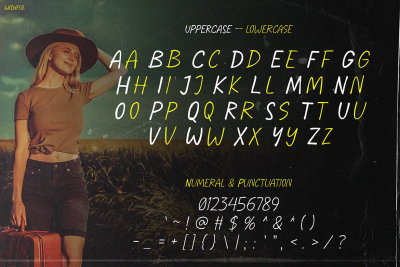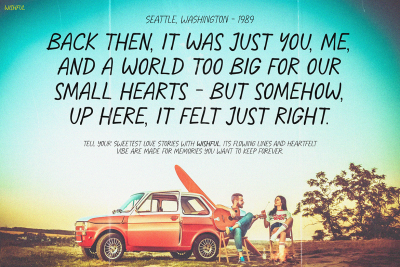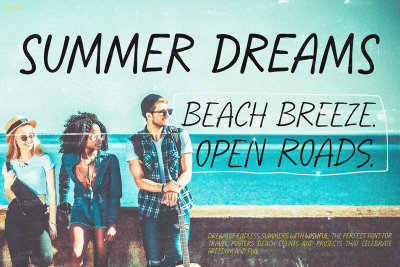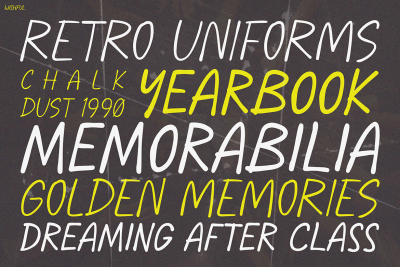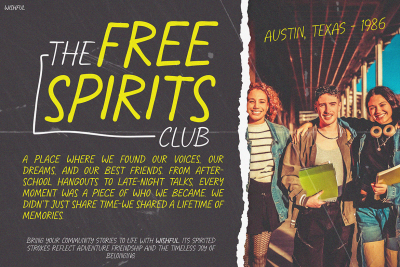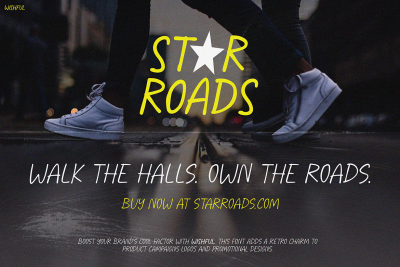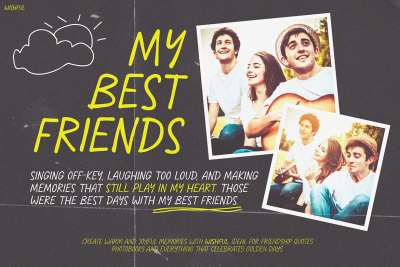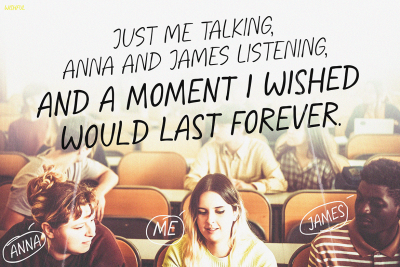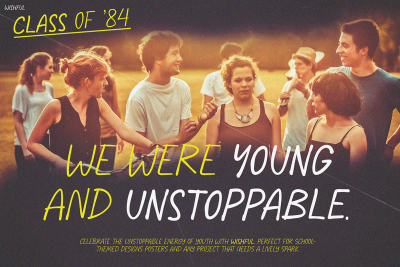
Handwriting Font Wishful is a charming and expressive script that brings warmth and beauty to your designs. From the very first glance, its smooth strokes and flowing curves capture the feeling of handwritten letters. Not only does it look elegant, but it also adds a personal and emotional touch. Therefore, itโs perfect for projects that need a creative and heartfelt feel. Whether you’re designing for a brand or a personal event, this font adds visual interest without feeling too formal.
In addition, the font’s clean structure ensures it remains legible while still feeling organic. Its natural rhythm helps your words come to life. As a result, your message stands out in a stylish and meaningful way. Rather than using a standard font, you can let Handwriting Font Wishful bring a unique character to your work, making it a visual treat that adds instant character and emotion to any creative work.
Handwriting Font Wishful Perfect For
Handwriting Font Wishful is ideal for a wide range of users. For example, graphic designers can use it in branding projects to add a soft, romantic tone. Moreover, bloggers and influencers often pair it with minimalist visuals to create a strong aesthetic identity. Business ownersโespecially those in fashion, beauty, or lifestyleโcan use it to build a sophisticated and consistent brand image. Additionally, teachers and creatives can use it to make worksheets, journals, or planners more visually engaging. Anyone who wants to design with personality and emotion will find this font a great choice.
Let Your Words Flow Beautifully
In conclusion, Handwriting Font Wishful combines beauty, clarity, and expression into one elegant typeface. Itโs more than just a fontโitโs a tool to help you communicate with style. So, if you’re ready to enhance your designs with charm and grace, give this font a try. Itโs time to let your creativity flow.